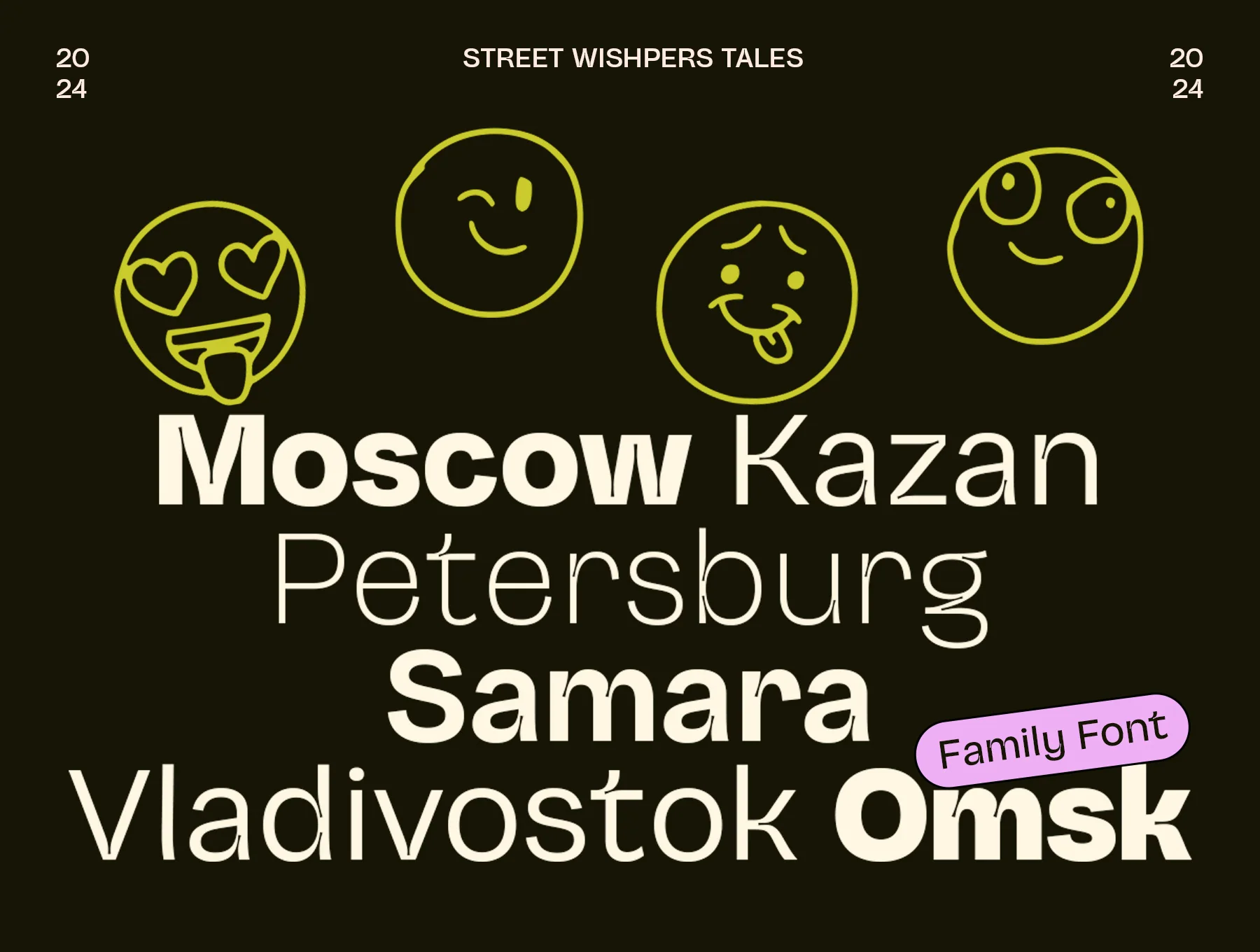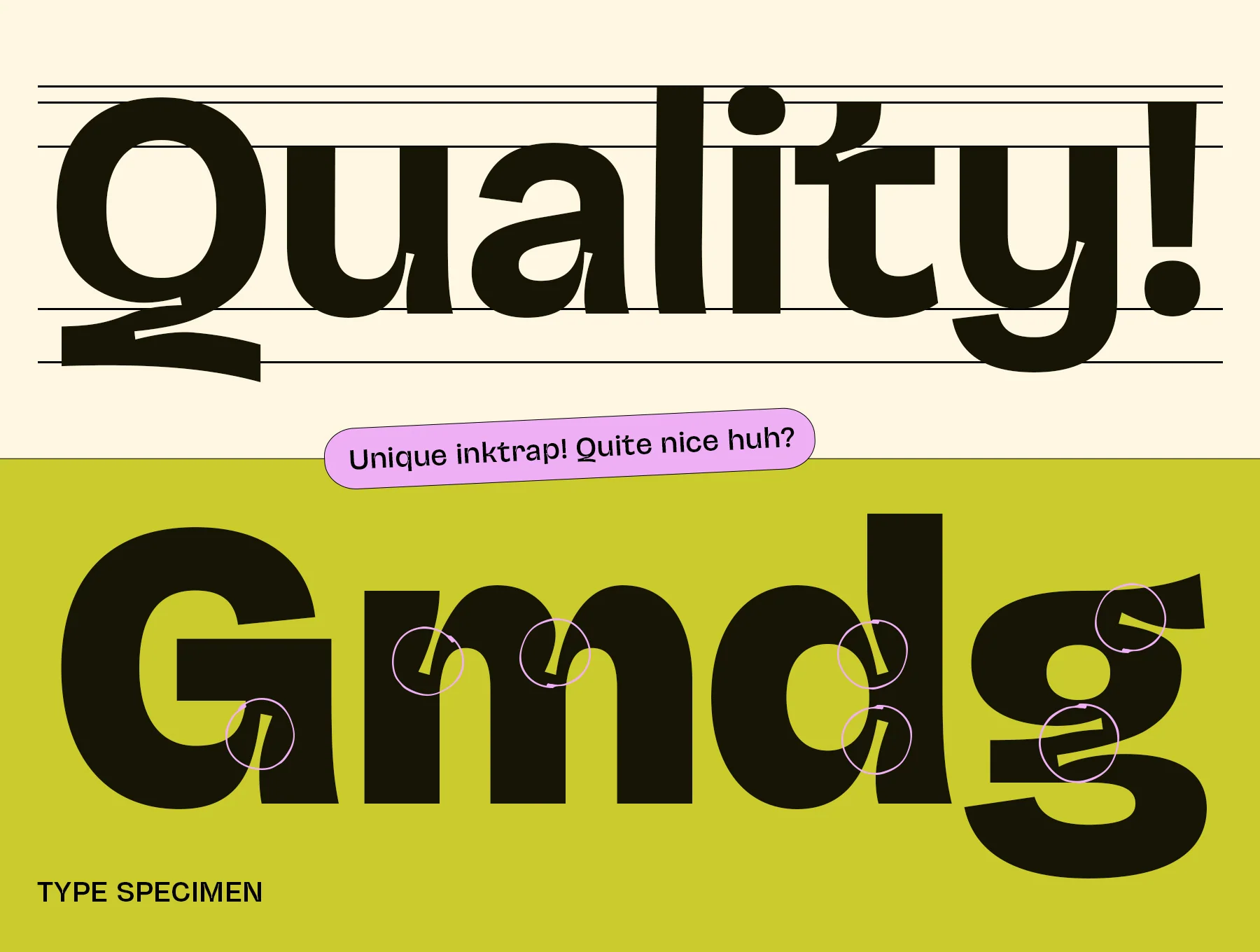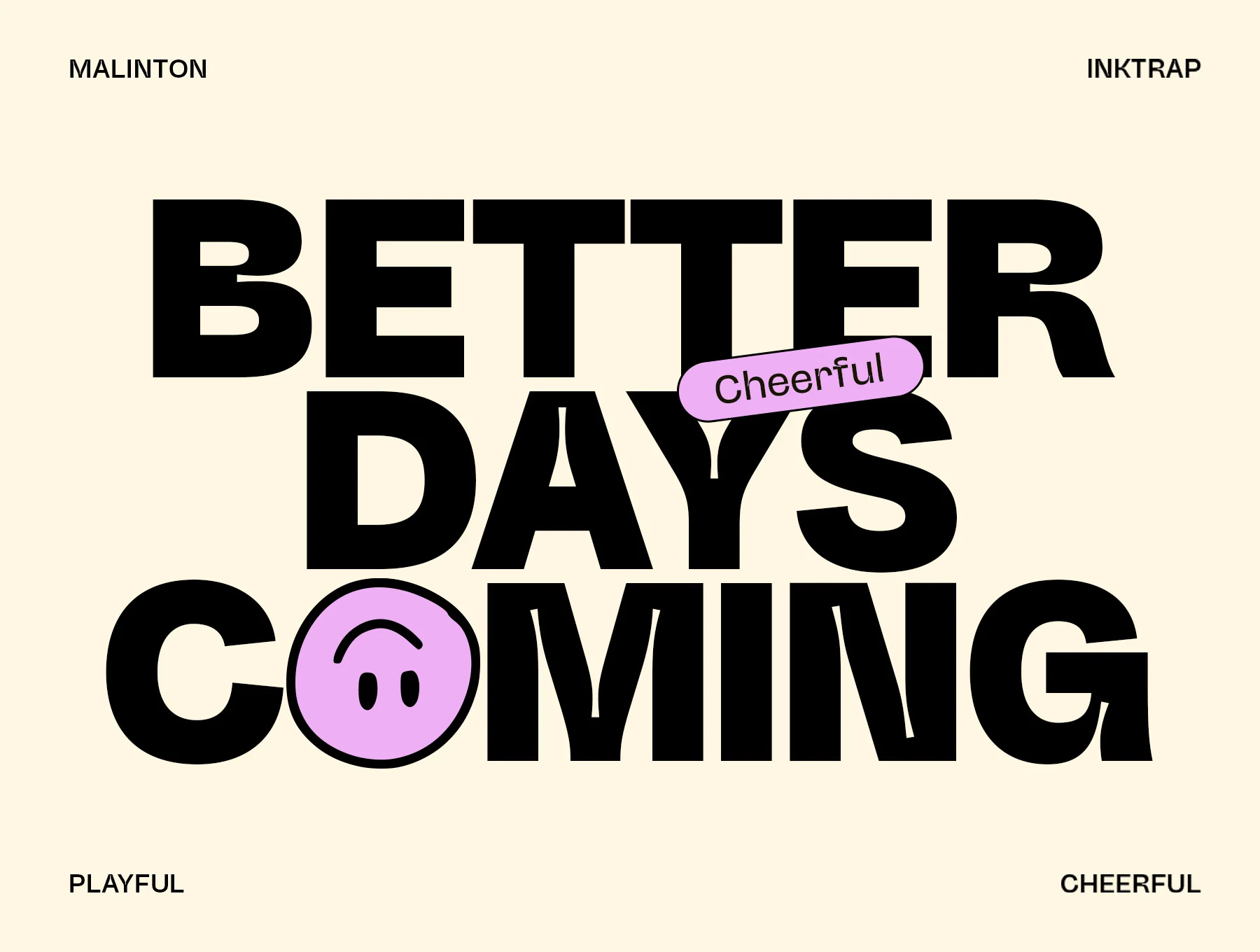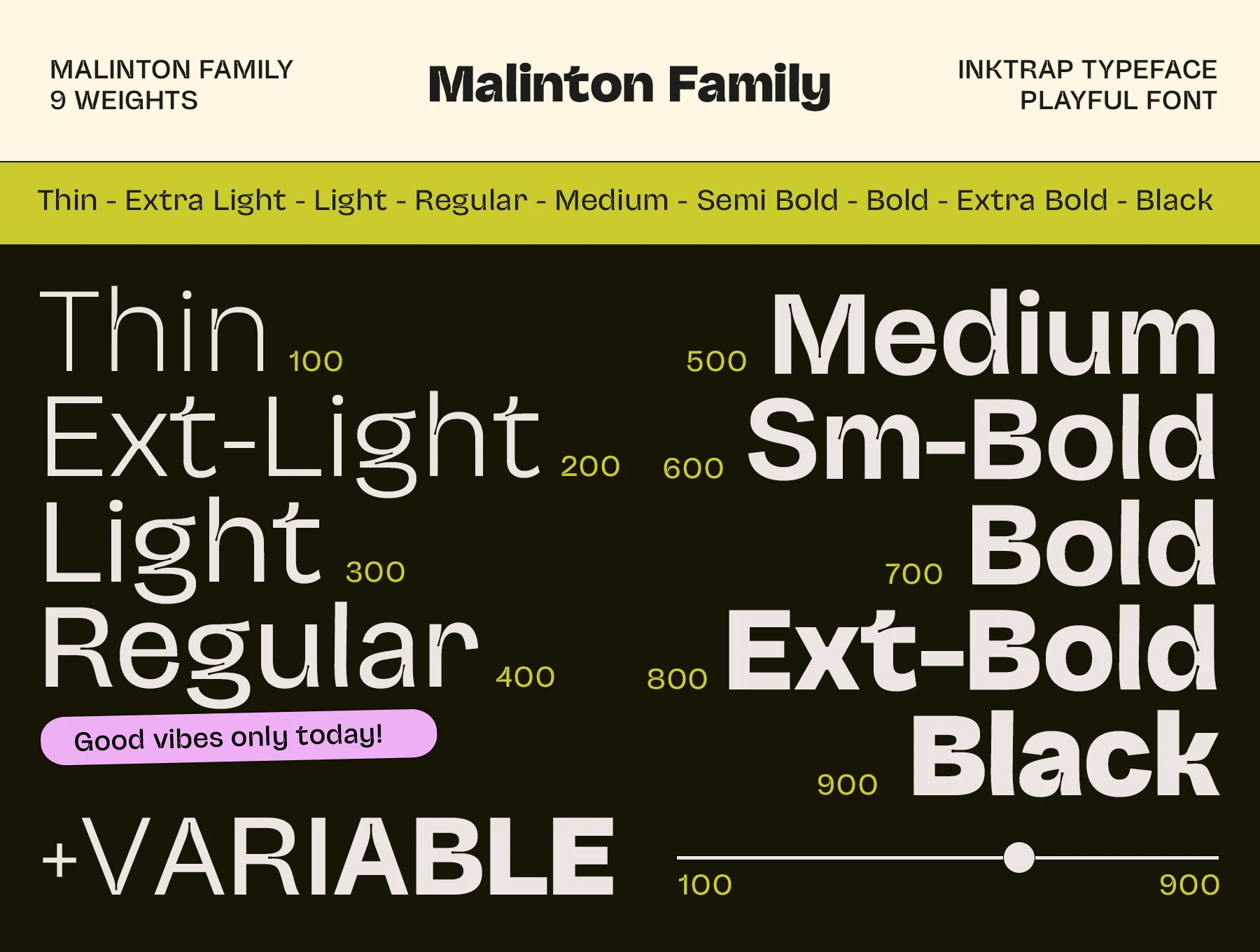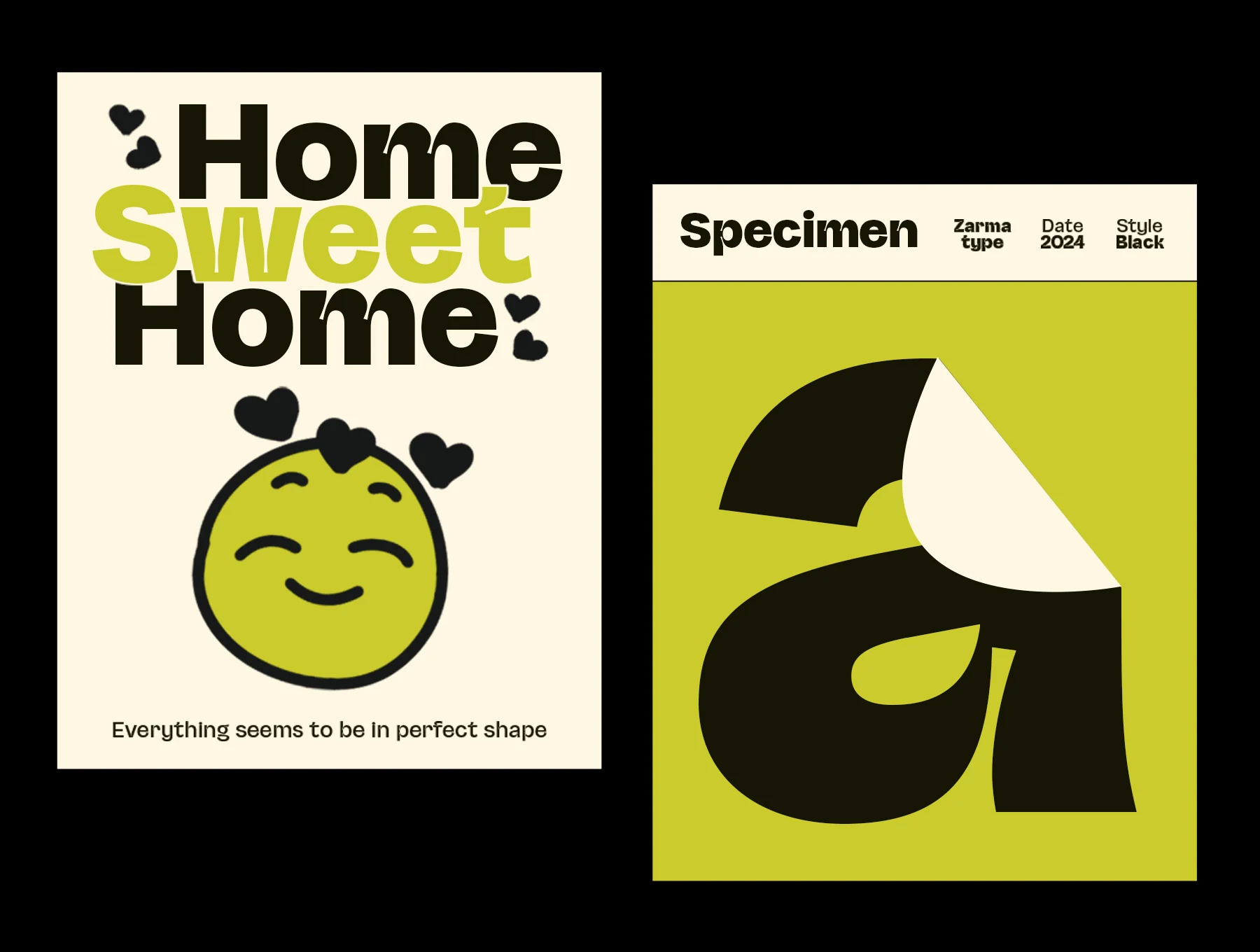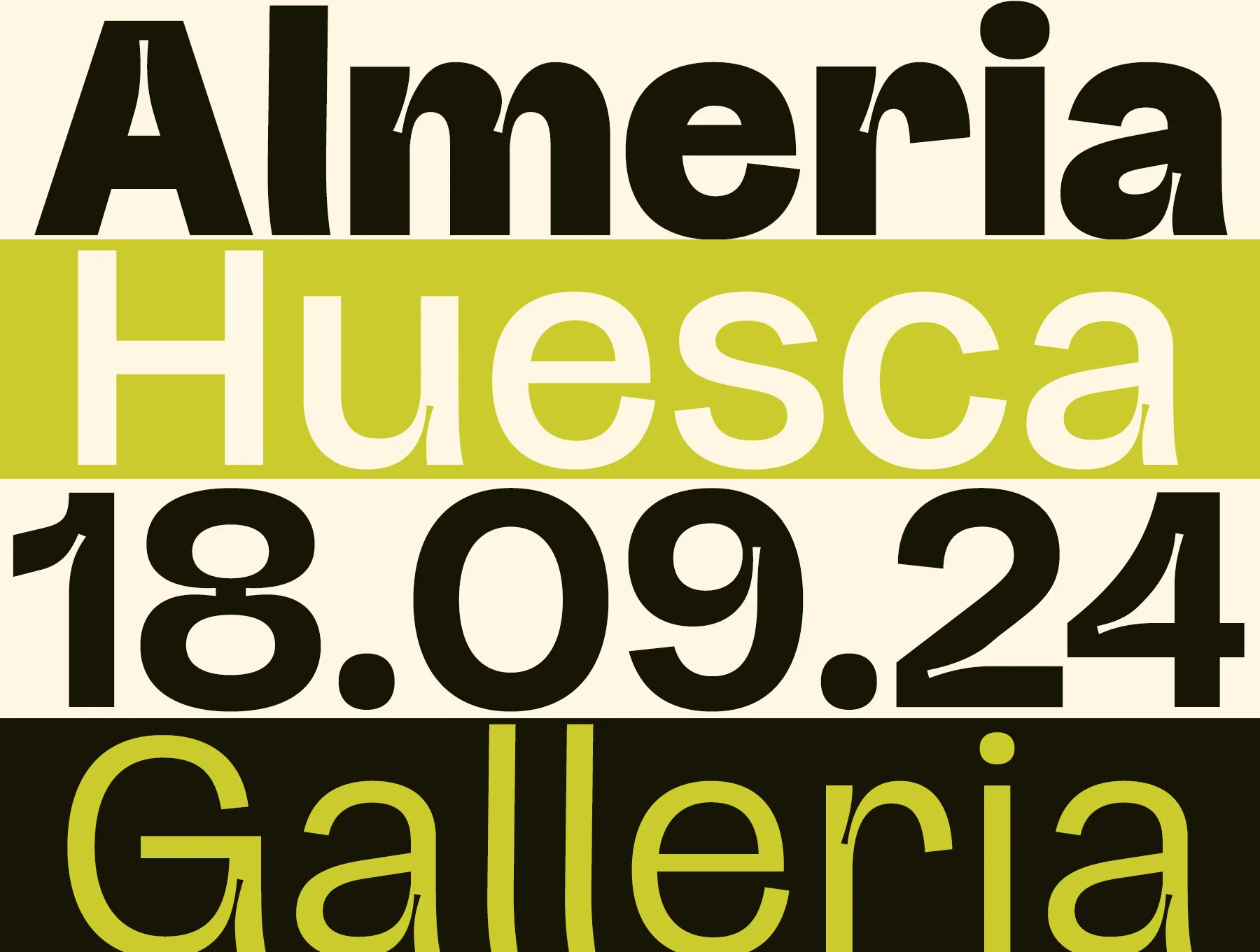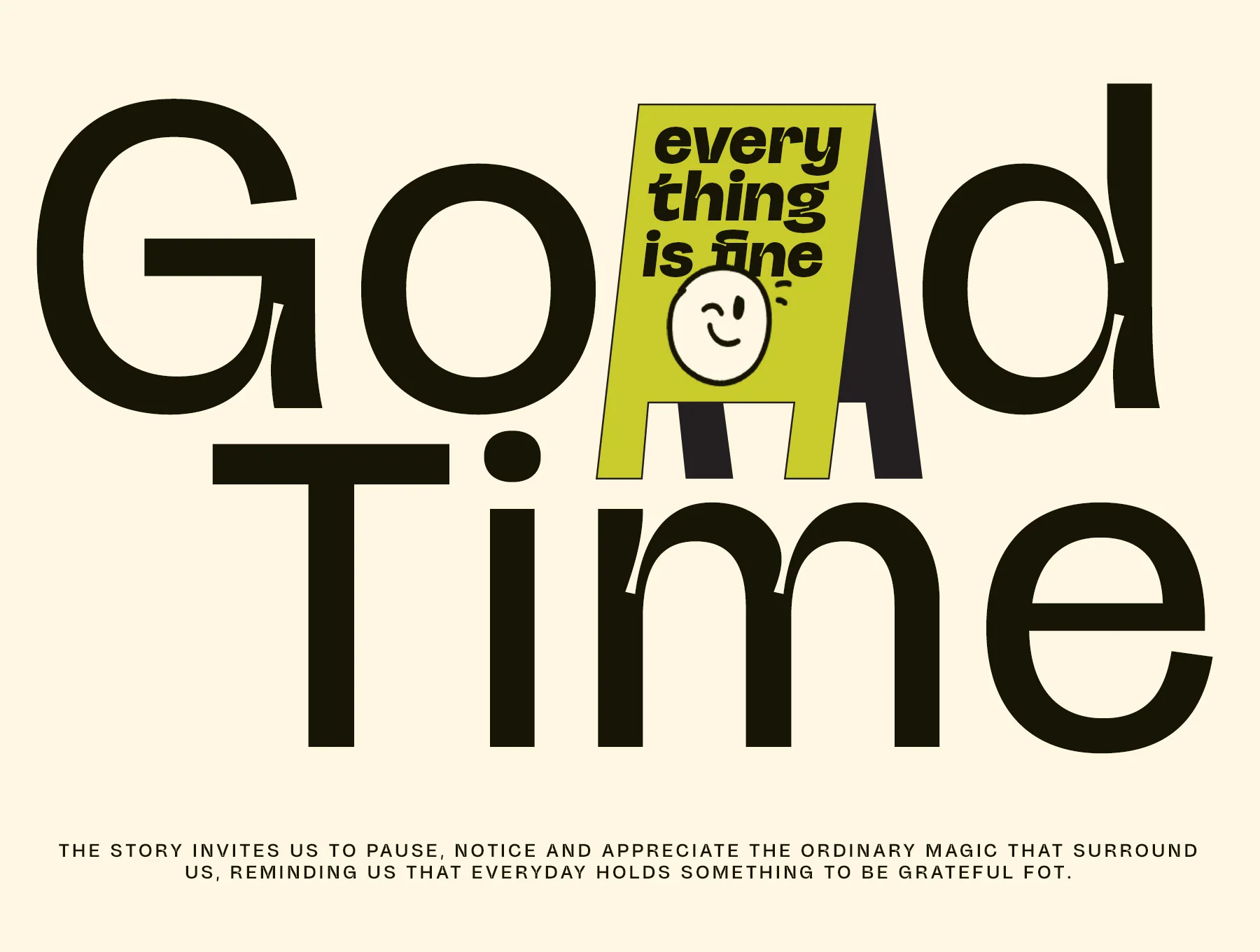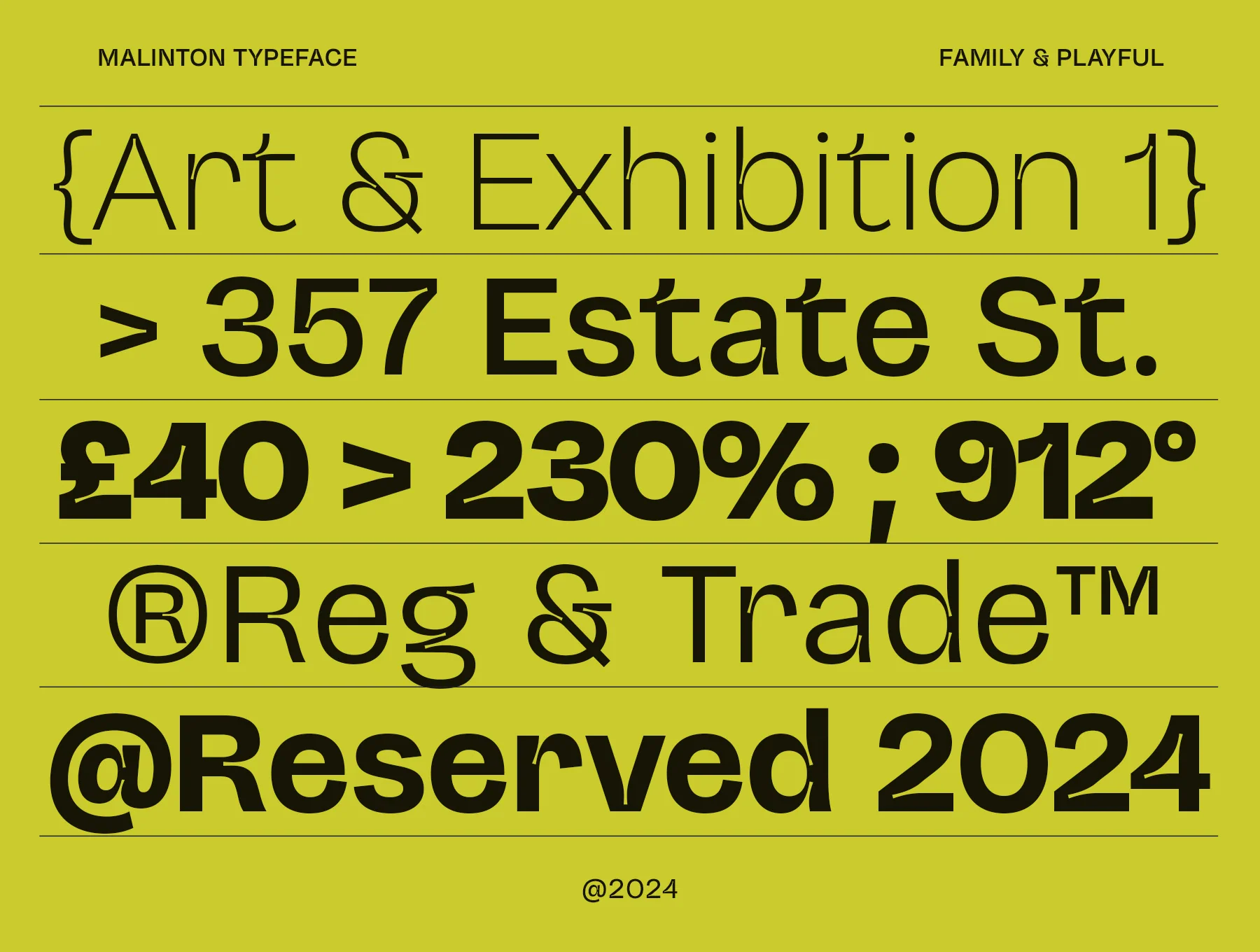
Malinton - Display Sans Serif Font
Playful style meets work-ready design: a smart blend of fun and practicality
Includes capitals, small letters, numbers, and punctuation
Expanded Latin character set
Supports over 85 languages
Malinton Display Sans is a characterful type family that adds energy to any layout. With 9 weights from Extra Light to Black, it suits bold headlines, polished branding, social posts, and editorial work. Distinct ink traps, fun emoticon alternates, OpenType tools, variable font support, and broad language coverage keep designs readable, expressive, and professional.